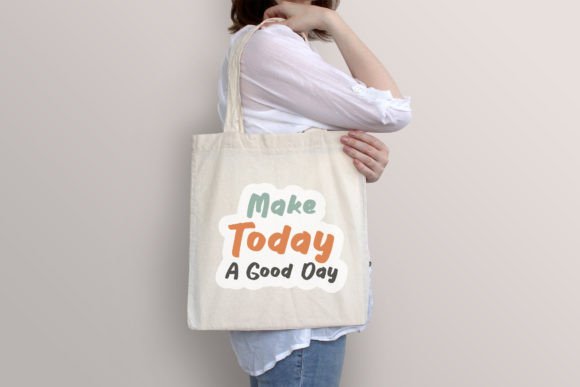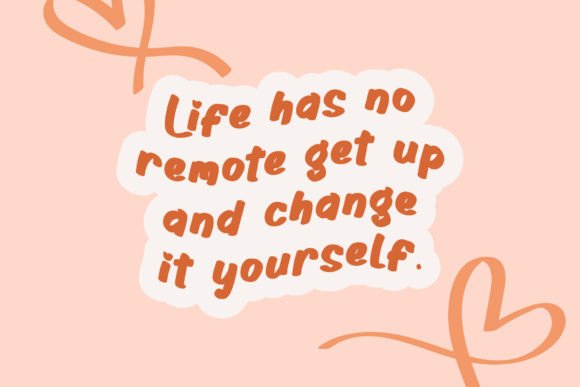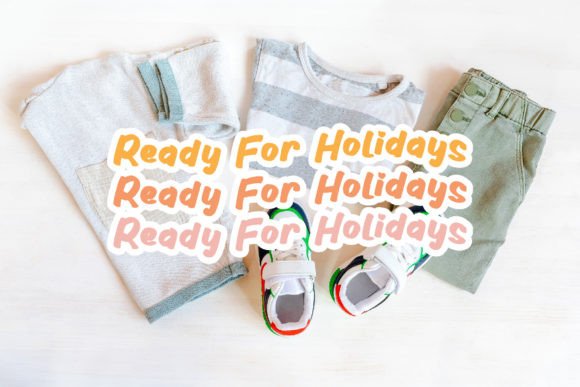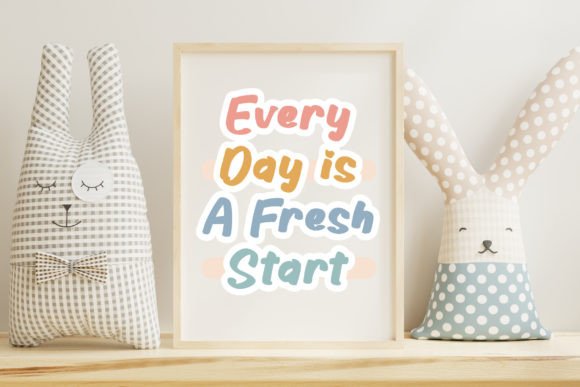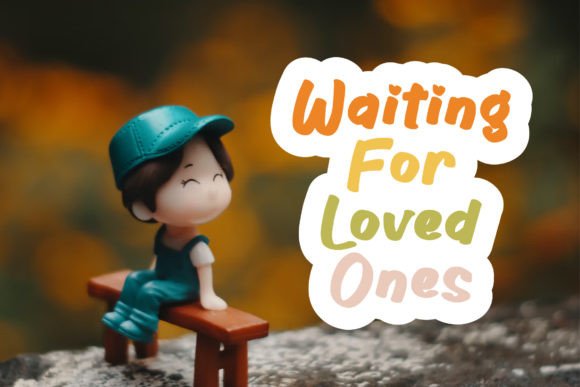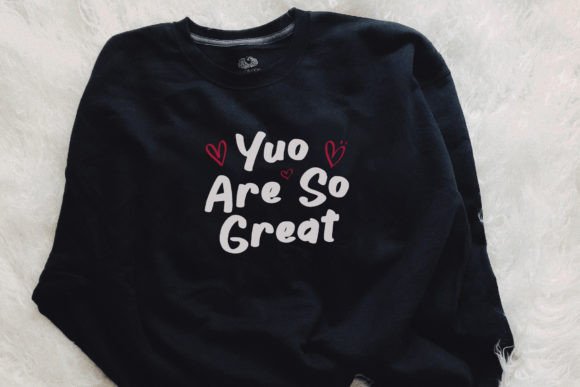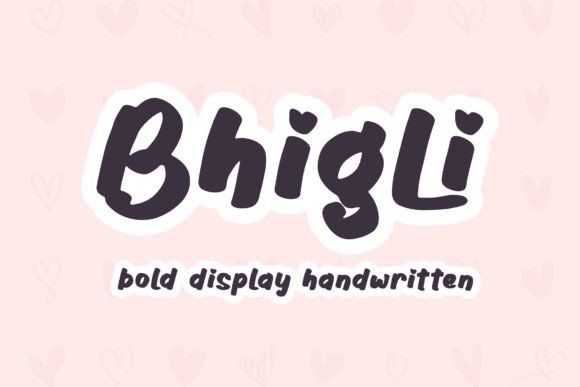
Bhigli Font: The Ultimate Bold Display Handwritten Font for Creative Projects
Are you a designer or crafter looking for a unique and eye-catching font to elevate your projects? Look no further than Bhigli Font, a bold display handwritten font that is perfect for a wide range of creative endeavors. In this article, we’ll explore the features and benefits of Bhigli Font, and show you how it can add a touch of elegance and sophistication to your designs.
What is Bhigli Font?
Bhigli Font is a bold display handwritten font that is designed to make a statement. With its unique and elegant script, it’s perfect for projects that require a touch of personality and style. Whether you’re working on a logo, branding project, homeware design, or product packaging, Bhigli Font is the perfect choice.
Features of Bhigli Font
Bhigli Font has a number of features that make it an ideal choice for designers and crafters. Some of its key features include:
- Bold and eye-catching: Bhigli Font is a bold and eye-catching font that is sure to grab attention. Its unique script and elegant style make it perfect for projects that require a touch of drama and flair.
- Handwritten style: Bhigli Font has a handwritten style that gives it a personal and organic feel. It’s perfect for projects that require a touch of warmth and personality.
- Versatile: Bhigli Font is a versatile font that can be used for a wide range of projects, from logos and branding to homeware designs and product packaging.
- Easy to read: Despite its bold and elegant style, Bhigli Font is easy to read and understand. This makes it perfect for projects that require a clear and concise message.
Uses of Bhigli Font
Bhigli Font is a versatile font that can be used for a wide range of projects, including:
- Logos and branding: Bhigli Font is perfect for logos and branding projects that require a bold and eye-catching font.
- Homeware designs: Bhigli Font can be used to add a touch of elegance and sophistication to homeware designs, such as kitchenware, bedding, and towels.
- Product packaging: Bhigli Font is perfect for product packaging that requires a bold and eye-catching font, such as food labels, cosmetics packaging, and gift wrapping.
- Mugs and quotes: Bhigli Font can be used to create beautiful and inspiring mugs and quotes that make perfect gifts or decorations.
- Posters and shopping bags: Bhigli Font is perfect for posters and shopping bags that require a bold and eye-catching font.
- T-shirts and book covers: Bhigli Font can be used to create unique and stylish t-shirts and book covers that are sure to stand out.
- Name cards and invitation cards: Bhigli Font is perfect for name cards and invitation cards that require a touch of elegance and sophistication.
- Greeting cards and labels: Bhigli Font can be used to create beautiful and inspiring greeting cards and labels that make perfect gifts or decorations.
- Photography and watermark: Bhigli Font can be used to add a touch of elegance and sophistication to photography and watermark projects.
Why Choose Bhigli Font?
There are many reasons why Bhigli Font is the perfect choice for designers and crafters. Some of the key benefits of using Bhigli Font include:
- Unique and eye-catching: Bhigli Font is a unique and eye-catching font that is sure to grab attention.
- Elegant and sophisticated: Bhigli Font has an elegant and sophisticated style that adds a touch of class to any project.
- Versatile: Bhigli Font is a versatile font that can be used for a wide range of projects.
In conclusion, Bhigli Font is a bold display handwritten font that is perfect for designers and crafters who want to add a touch of elegance and sophistication to their projects. With its unique and eye-catching script, Bhigli Font is sure to grab attention and make your projects stand out. Whether you’re working on a logo, branding project, homeware design, or product packaging, Bhigli Font is the perfect choice.